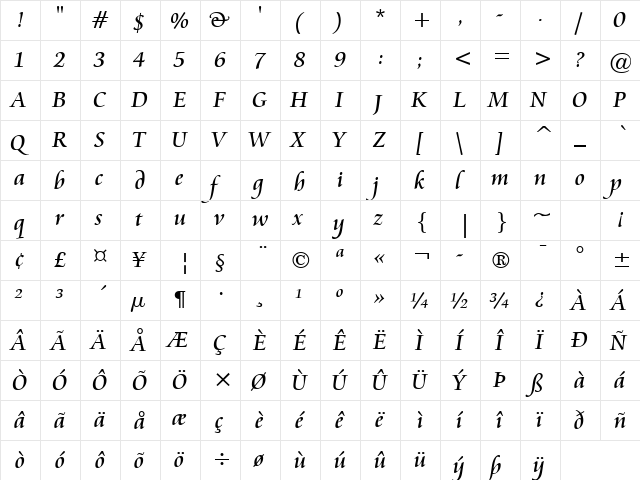
Tonite Regular
Design Context for Tonite Typeface
Tonite is a composed and adaptable typeface that performs quietly and consistently across a wide range of design contexts.